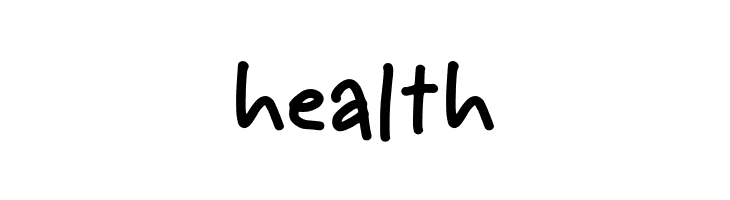
A playful font with characters embedded in cartoon bunny designs.
A playful font with characters embedded in teddy bear designs, perfect for children's projects.
A bold, distressed font with an irregular, grunge aesthetic.
A modern, geometric font with layered lines and a structured appearance.
A modern, geometric sans-serif font with uniform strokes and clear characters.
A bold, angular, and condensed font with a modern, geometric style.
A bold, angular font with a dynamic and energetic style.
A playful, handwritten font with bold, rounded characters and a whimsical style.
A bold, modern font with clean lines and strong geometric structure.
A playful font with characters enclosed in jigsaw puzzle pieces, offering a bold and unique style.
A bold, playful font with exaggerated, cartoonish strokes.
A bold, modern font with geometric elements and playful curves.
A chaotic and expressive handwritten font with erratic strokes.